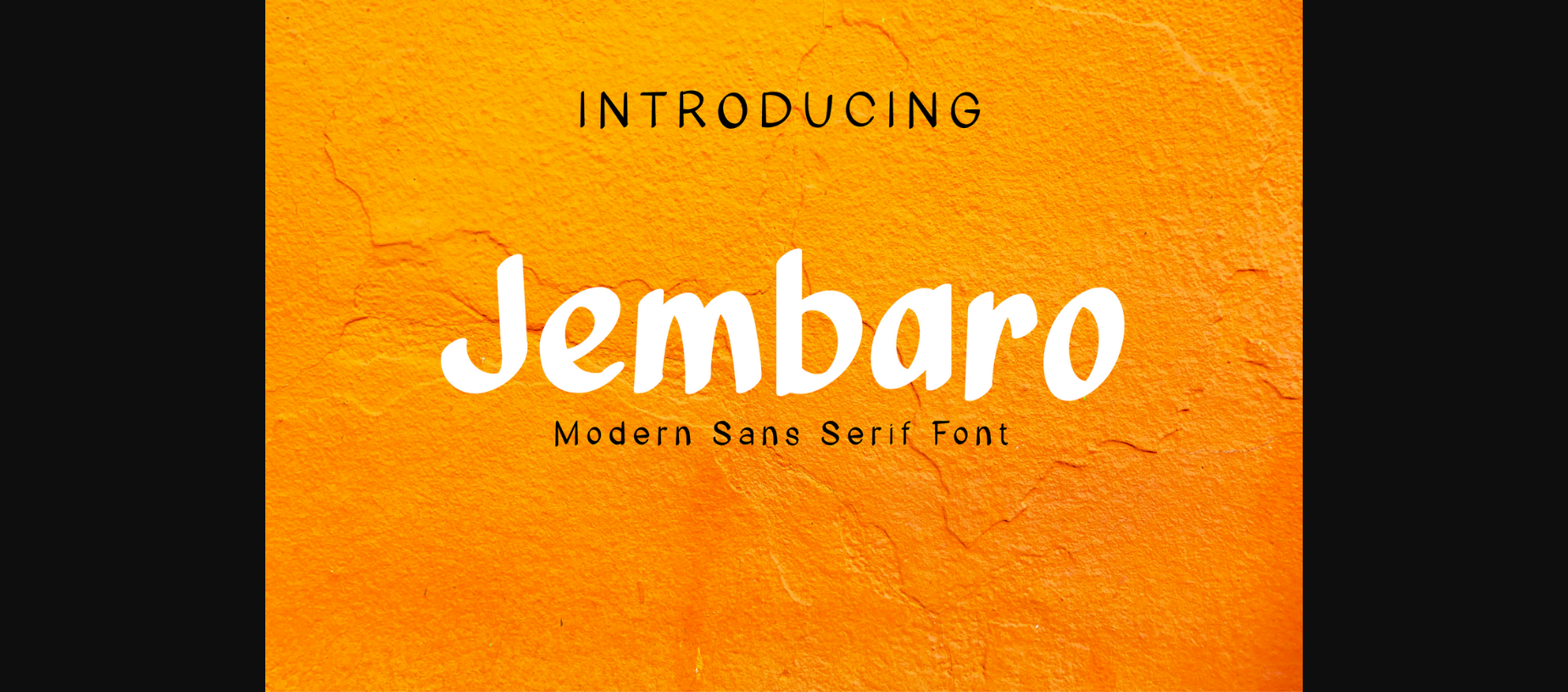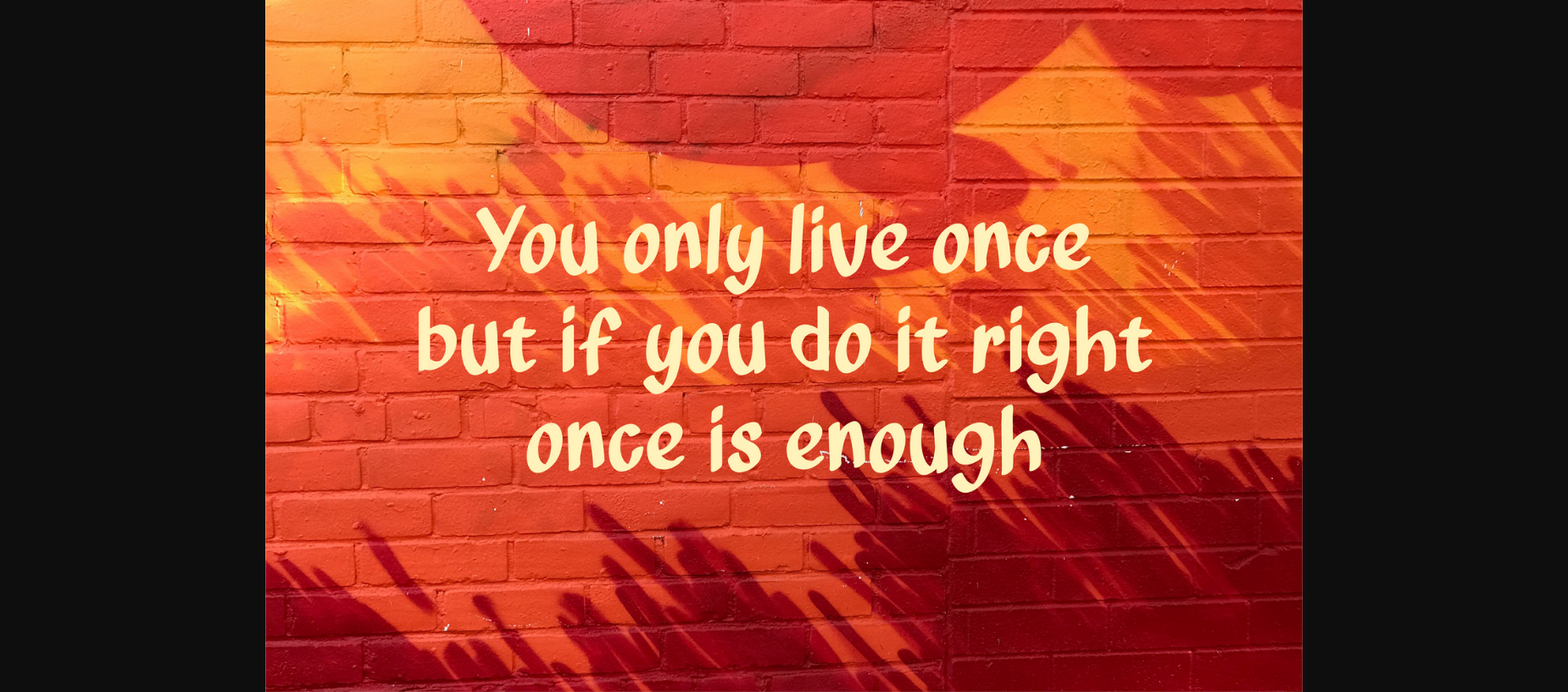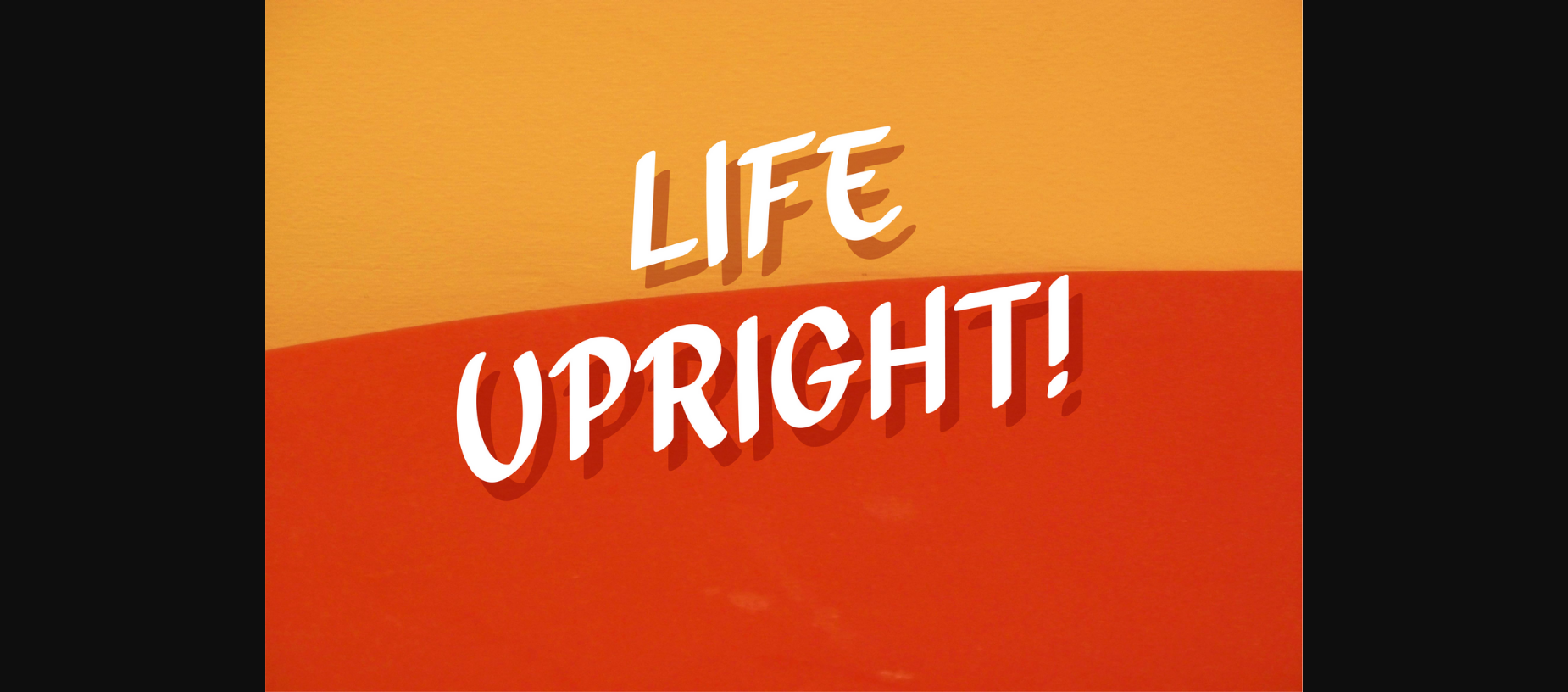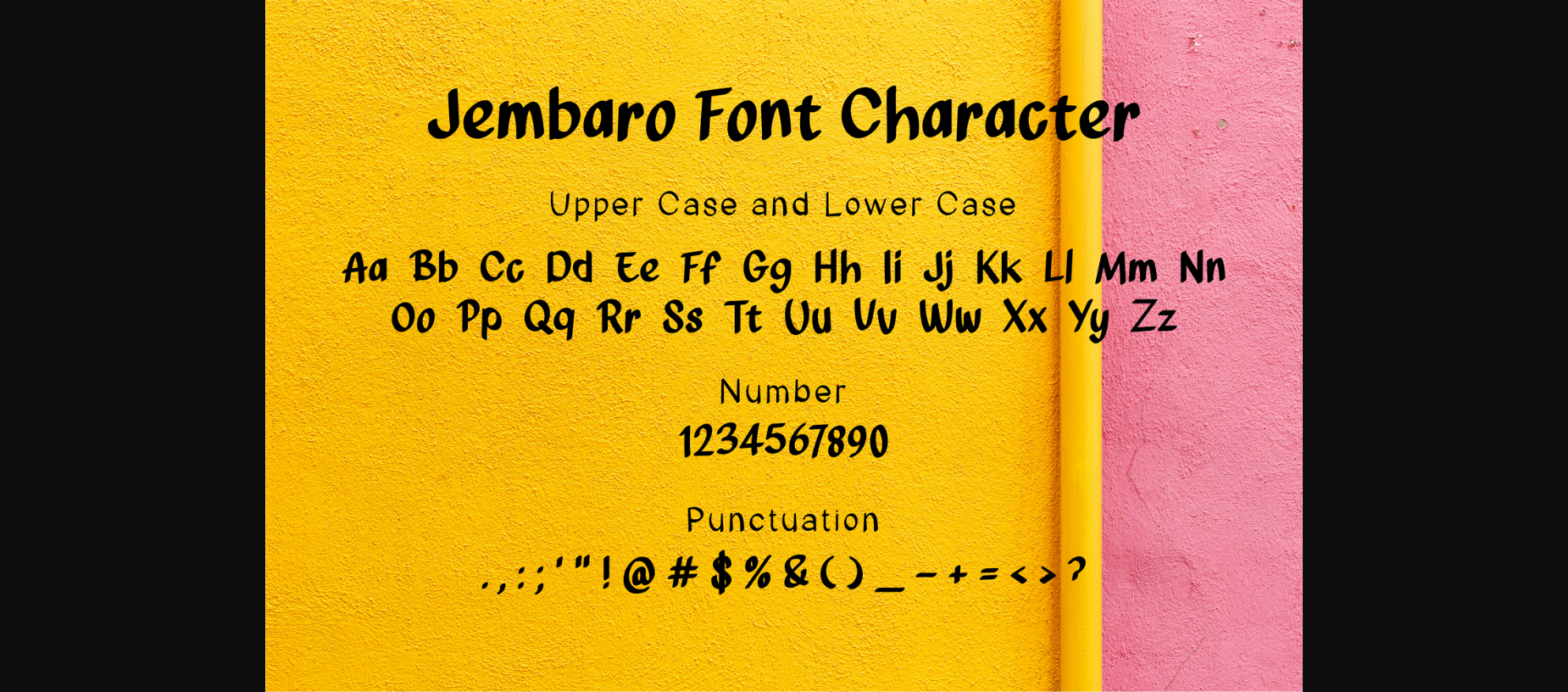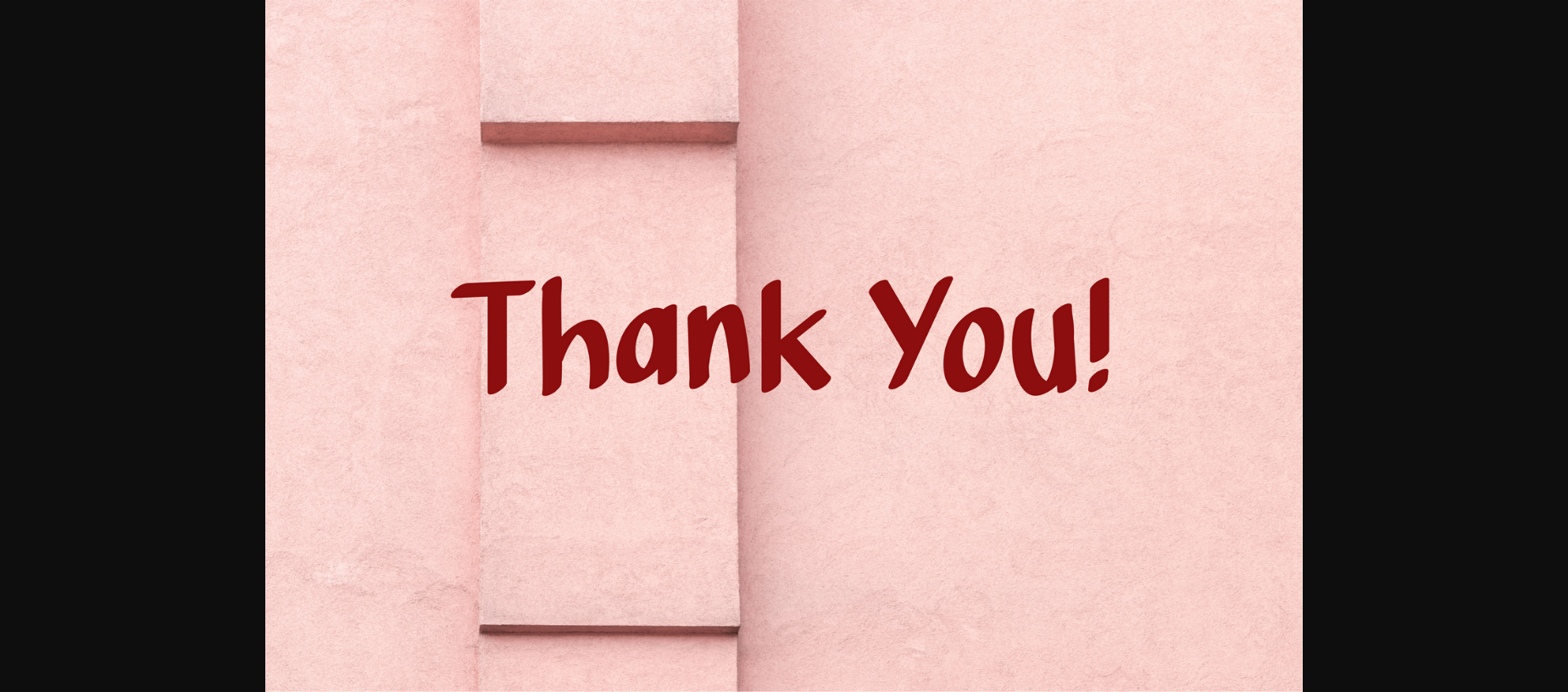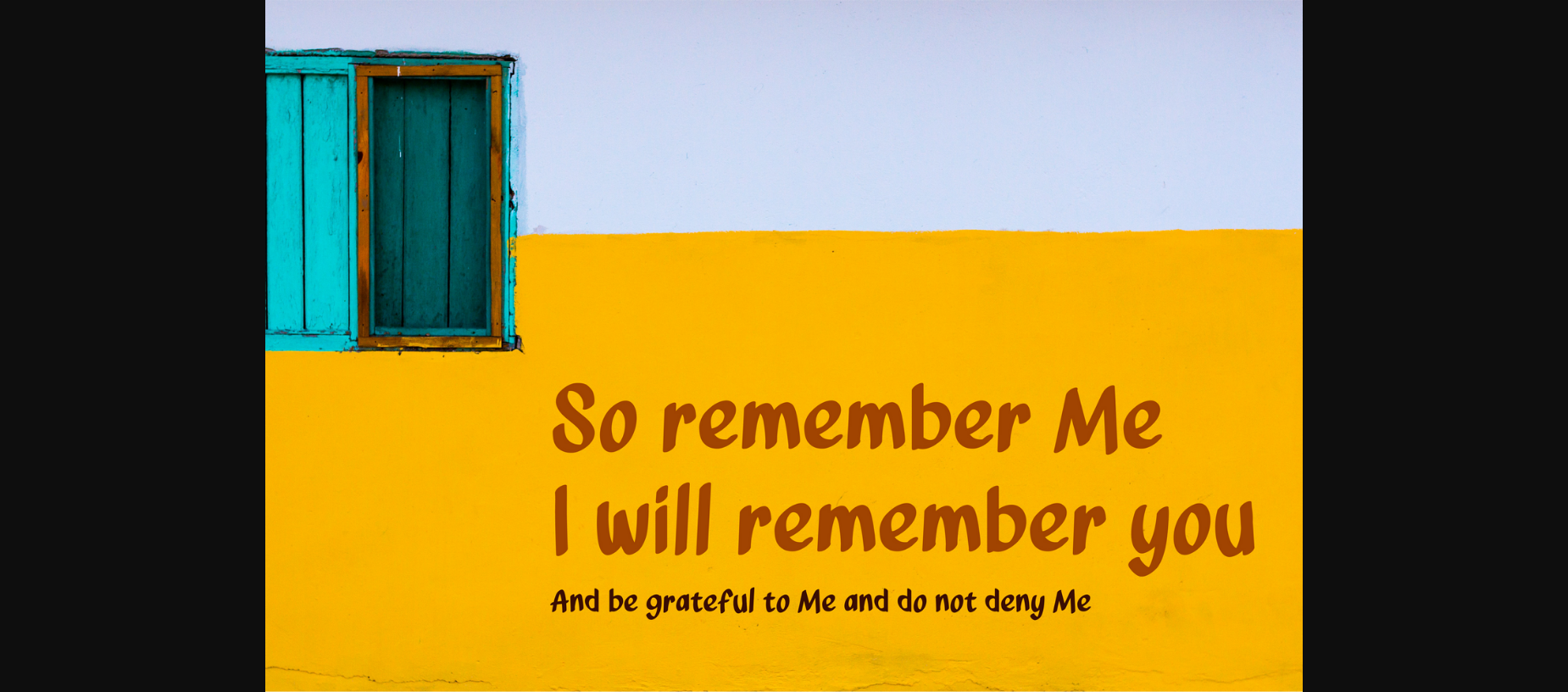
Jembaro Font
About Jembaro Font
Introducing Jembaro – Modern Sans Serif Font
Jembaro is a modern sans serif font. Perfect for branding projects, logos, wedding designs, social media posts, advertisements, product packaging, product designs, labels, photography, watermarks, invitations, stationery, and any projects that need handwriting taste.